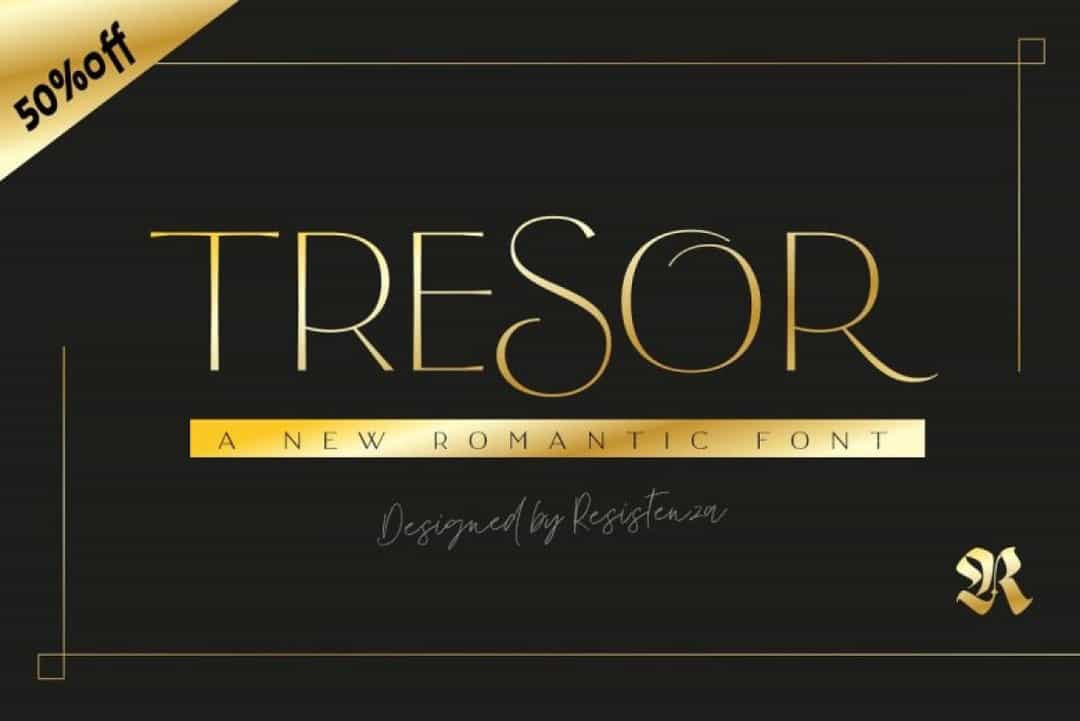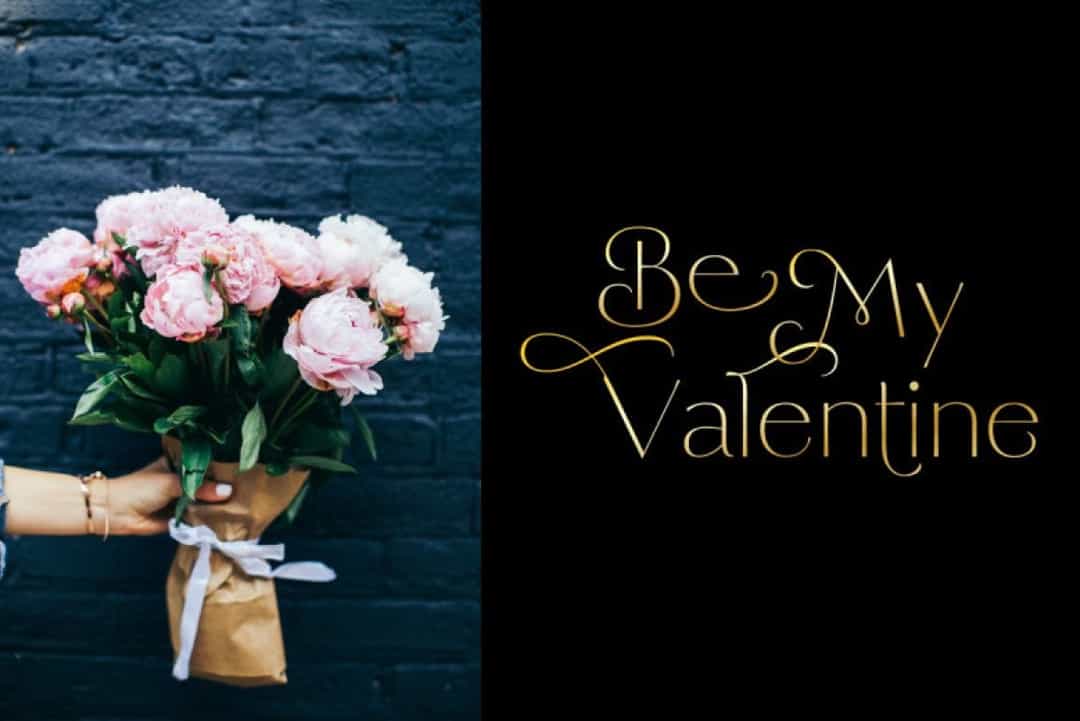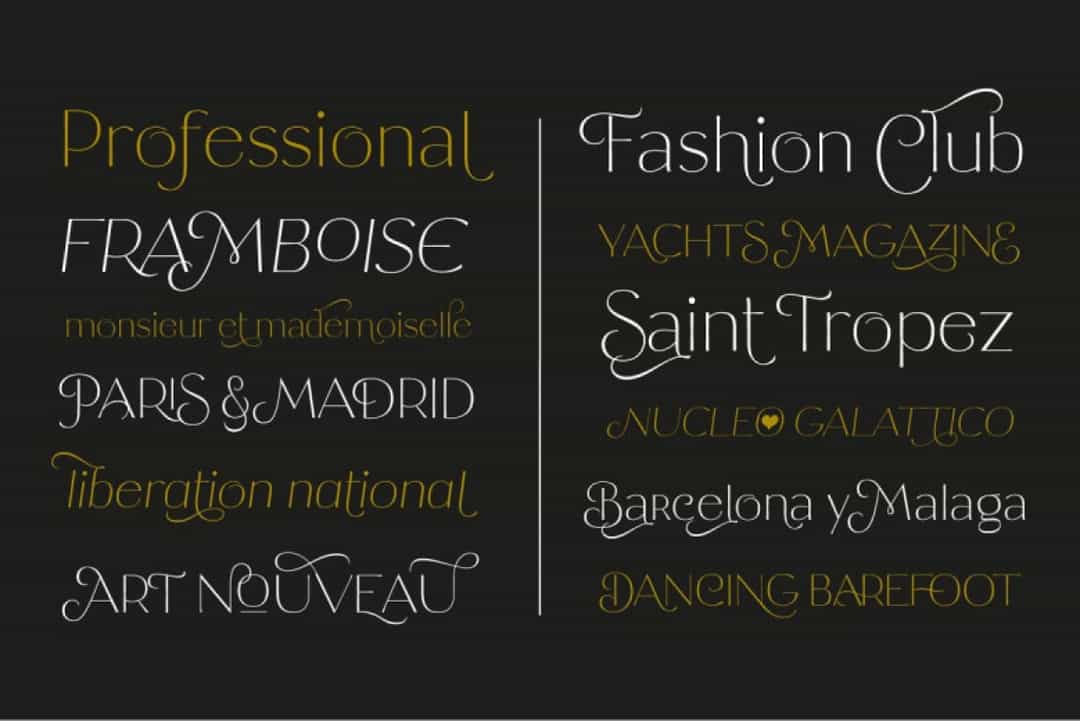
Tresor is a brand new Sans Serif font family with contrast. Combining classic design with romantic elements, its decorative alternative ligatures and alternates lend Tresor an air of romance. Translating to “treasure” from French means treasure trove, including stunning arrays of swashes. OpenType features make customizing Tresor even simpler than before! With over 1000 available glyphs to customize this font family you have endless opportunities for customization of text!